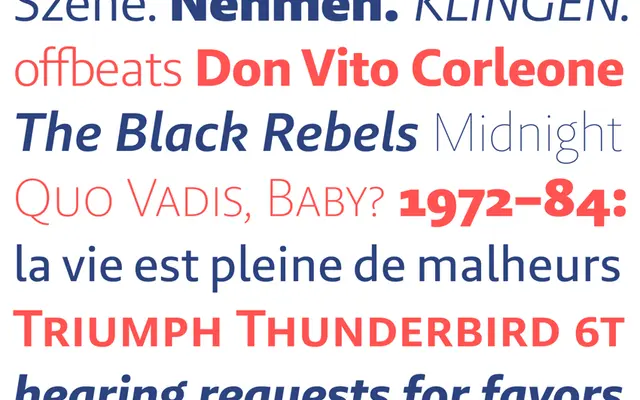
Brando Sans
Bold Monday · Mike Abbink, Aleksandra Samuļenkova · 2012
A humanist sans companion to the Brando serif family, available in eight weights with true italics and broad language coverage across Latin and Cyrillic scripts.
Designed by Mike Abbink and Aleksandra Samuļenkova between 2012 and 2020, Brando Sans pairs with the Brando serif while standing independently as a workhorse for editorial, branding and signage work. Its eight weights run from Hairline to Black, each with a true italic, and the character set extends to over 140 languages with small caps, multiple figure styles and fractions. Distinctive details such as the curved lowercase l and more symmetrical M and W give it a quiet individuality without undermining its utility.
Described explicitly as a contemporary humanist sans by the foundry, with true italics, open apertures and idiosyncratic details like a curved lowercase l that place it firmly in the humanist tradition rather than geometric or grotesque camps.